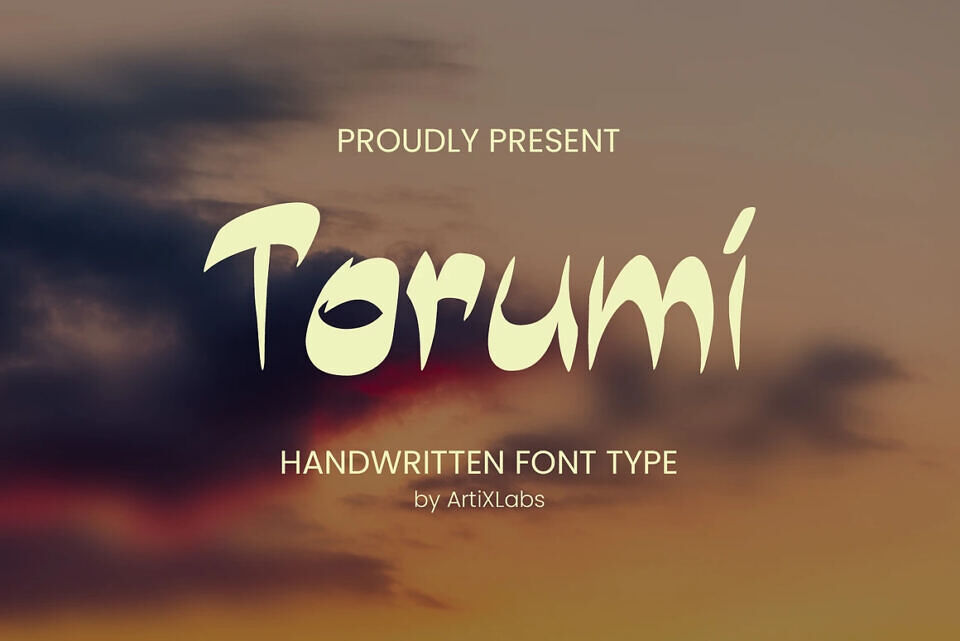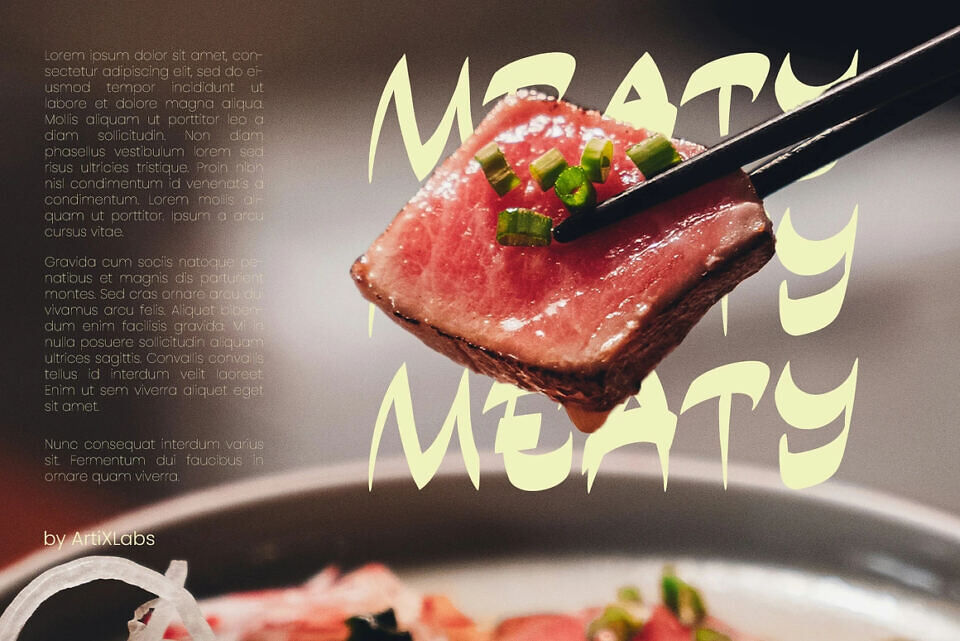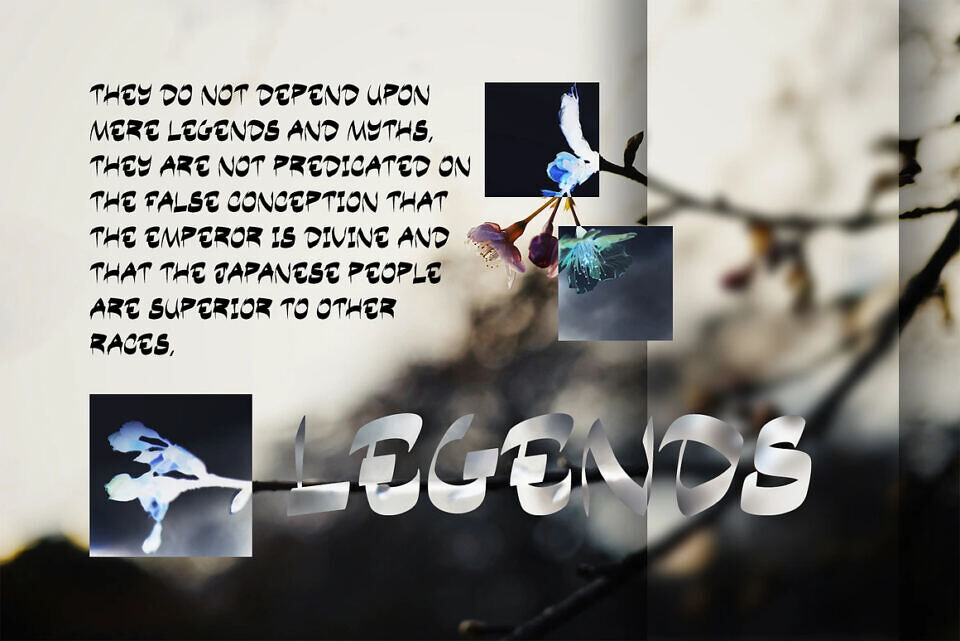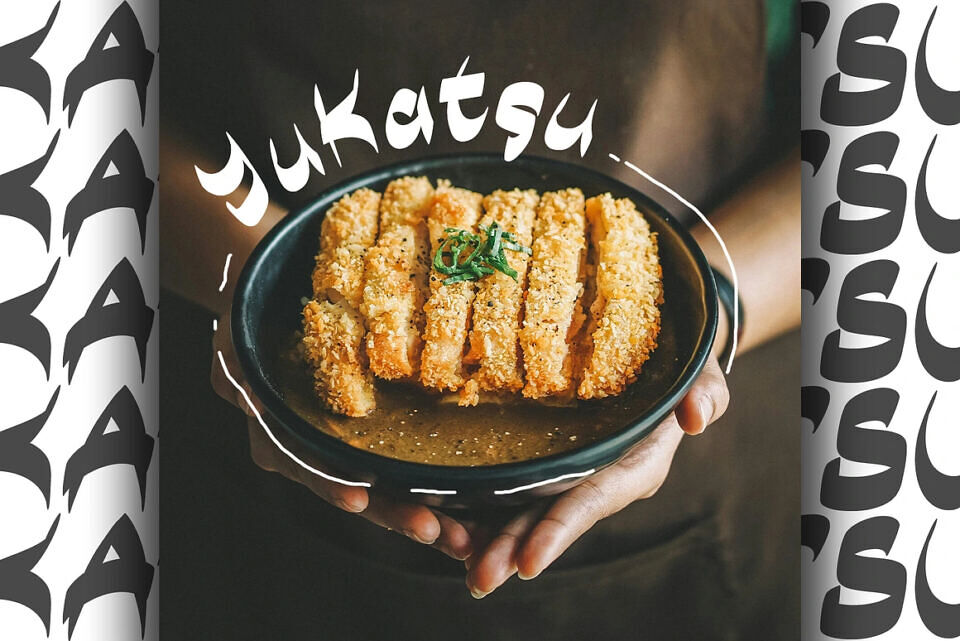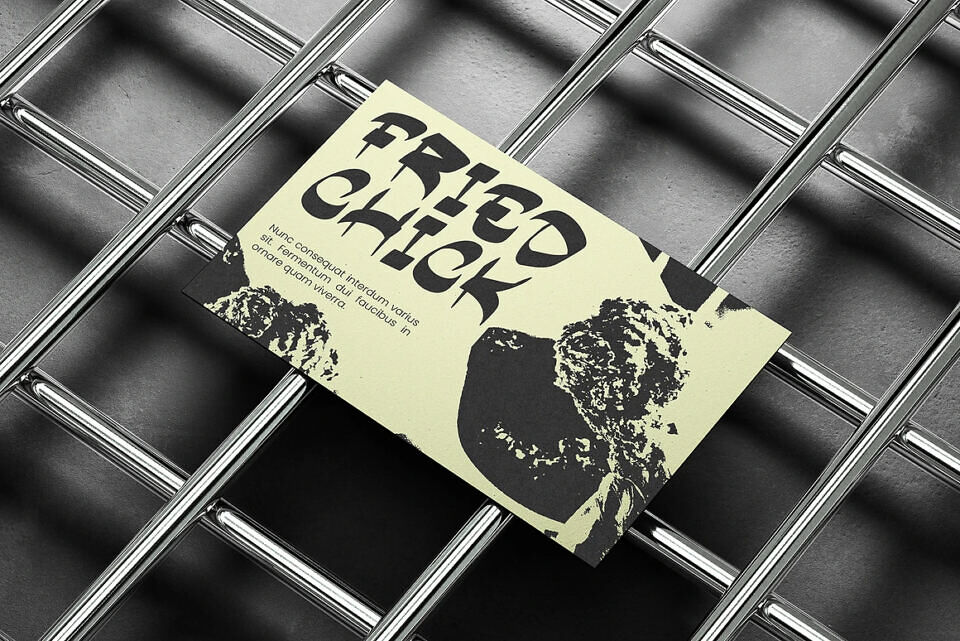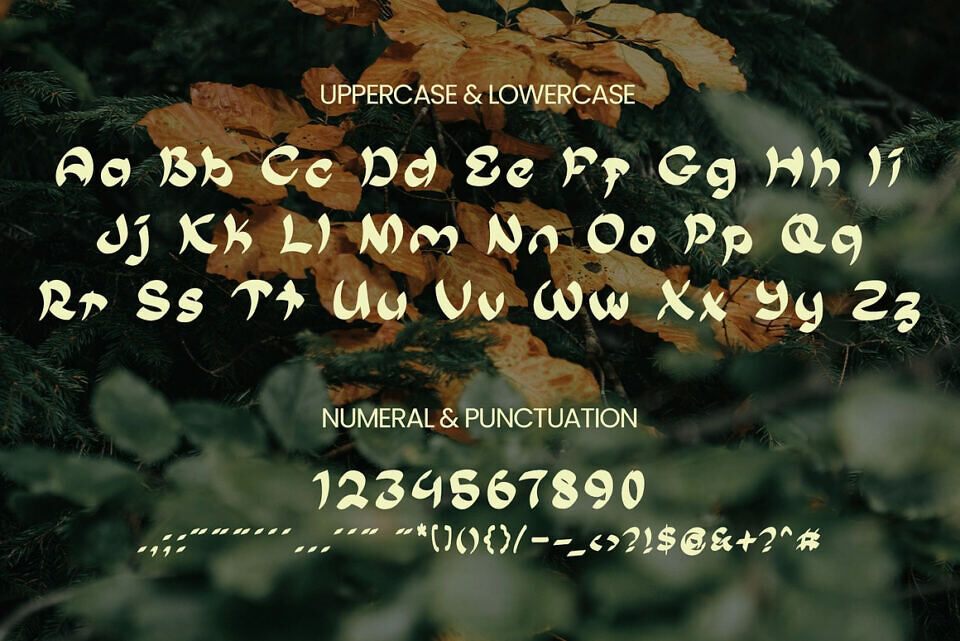
Torumi Font
Introducing Torumi – Handwritten Font! This Font can be used for any variety of purposes, such as: photography, Wedding, Ceremony, Packaging Products, Logo Type, Branding, T-Shirt Design, Website/Blog, Headline Magazine, Brochures and also can be used for other purpose.